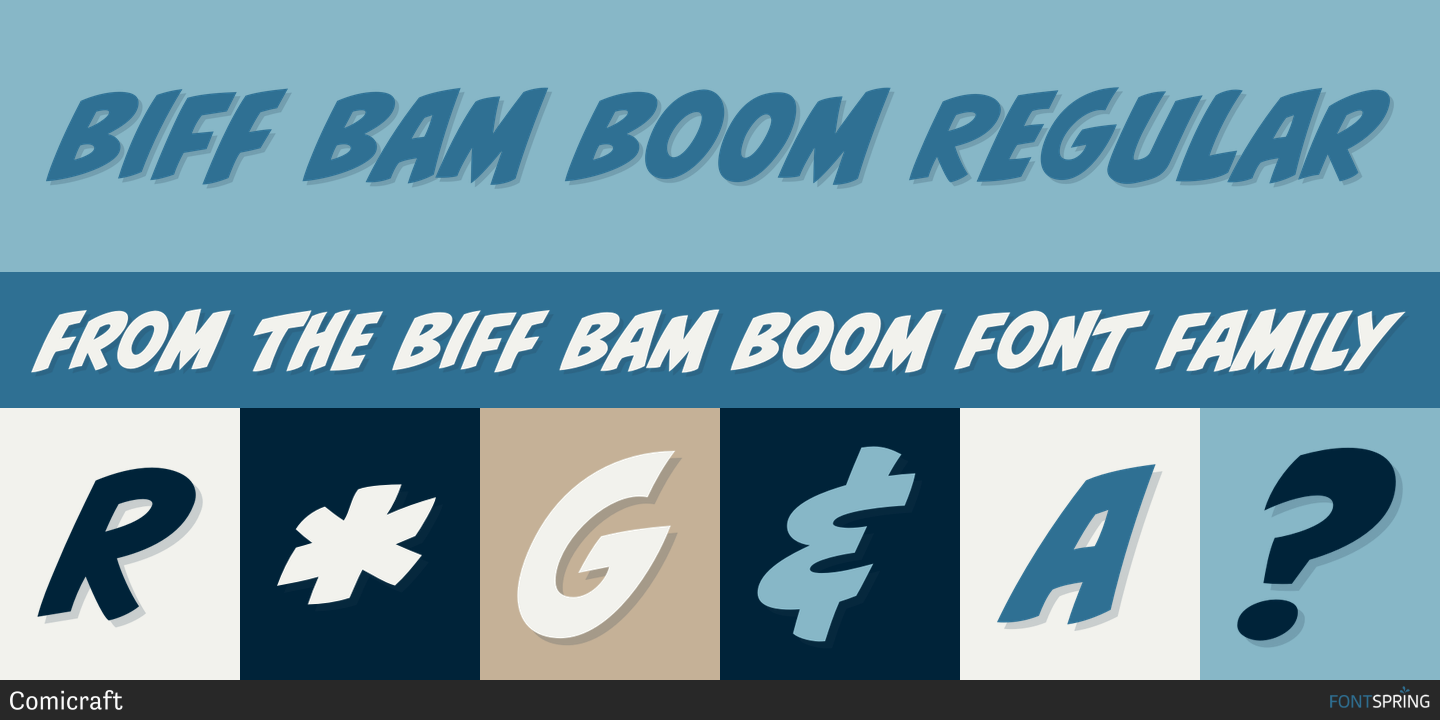
Biff Bam Boom Font
Biff Bam Boom Font - Designed by john roshell, biff bam boom is a comic and hand display font family. Inspired by the legendary lettering legerdemain of marvel stalwarts, artie simek and sam rosen, biffbamboom is a font you can't take a swing. This typeface has two styles and was published by comicraft. Inspired by the legendary lettering of comics’.